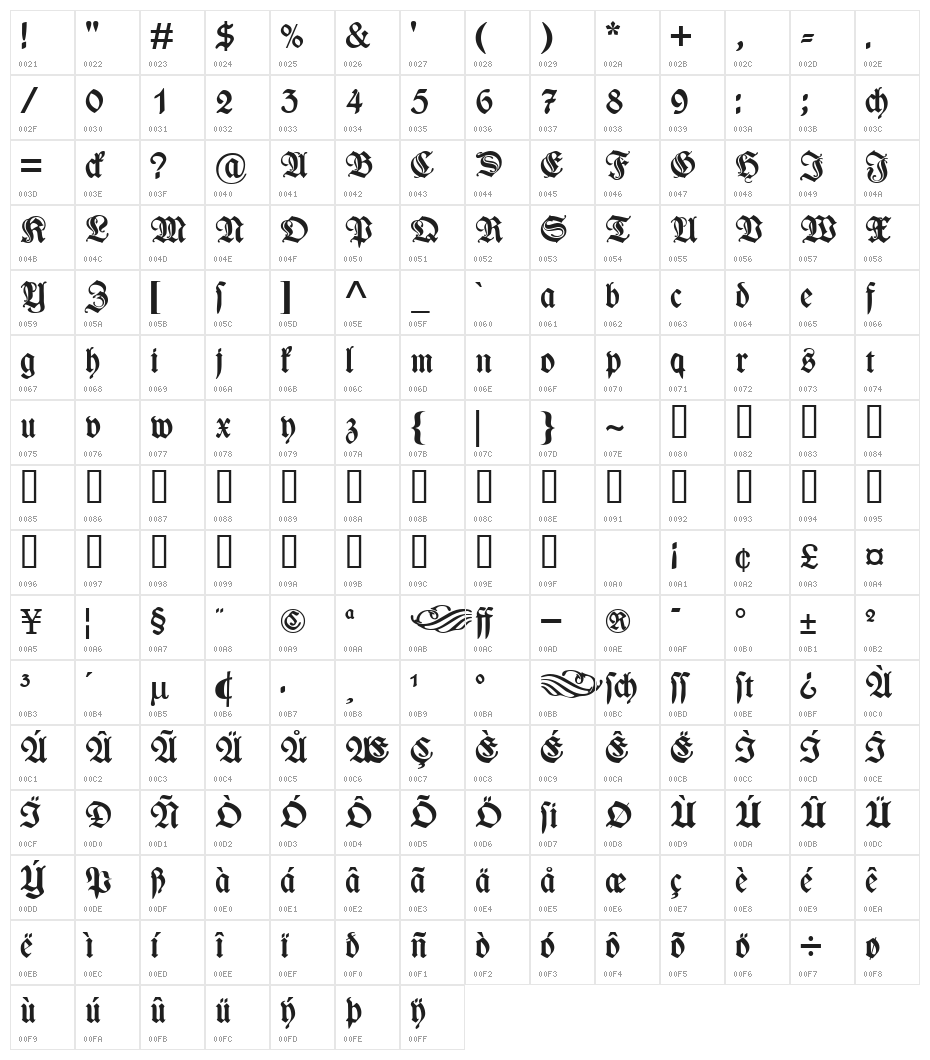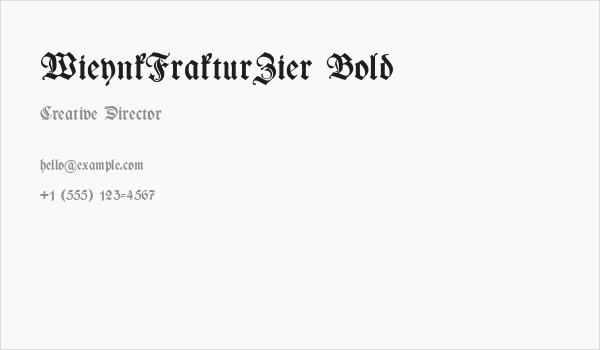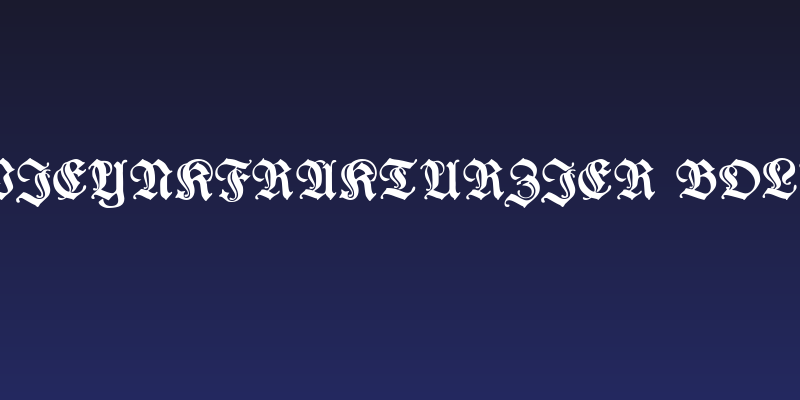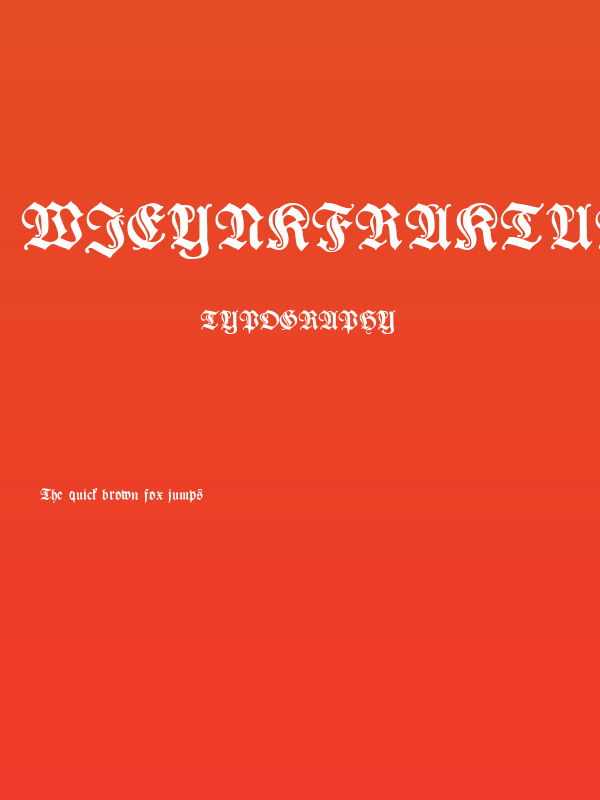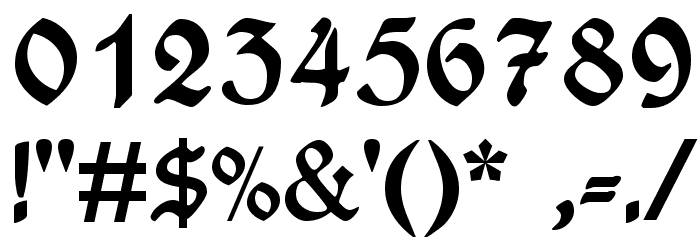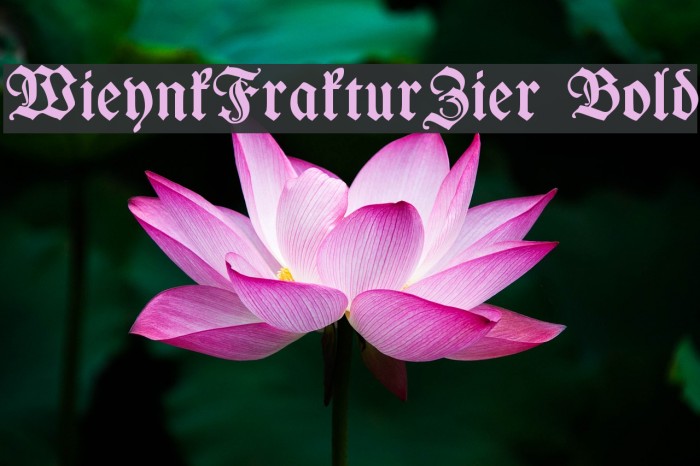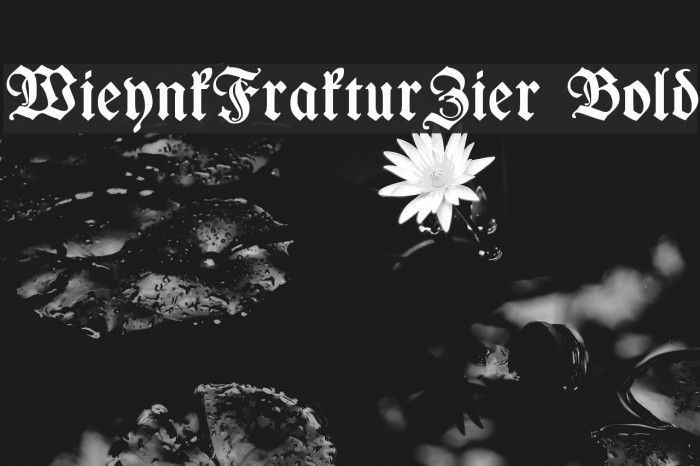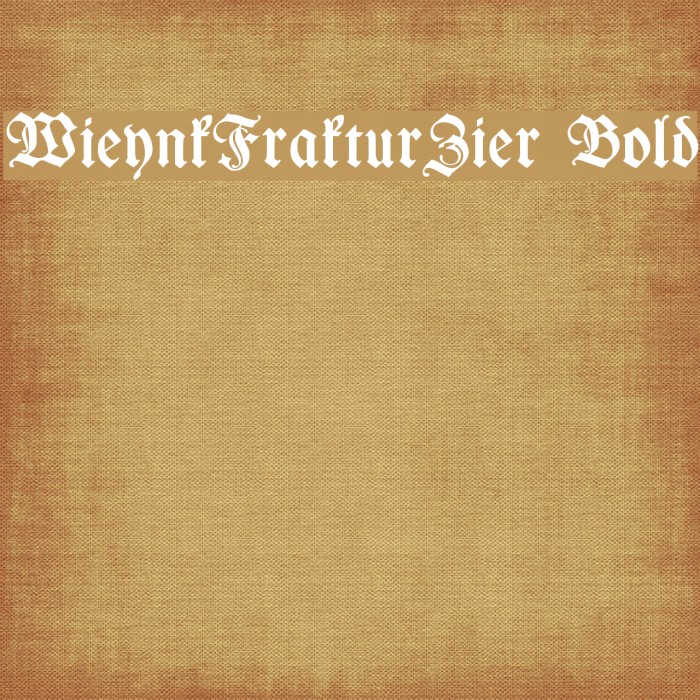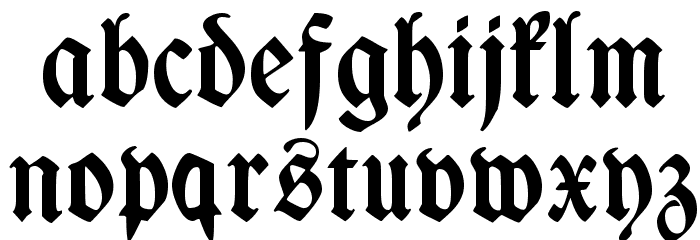
WieynkFrakturZier Bold Font
WieynkFrakturZier Bold Description
This font is a bold and intricate Blackletter style, characterized by its ornate and decorative elements. The letters feature sharp, angular lines with elaborate flourishes, typical of traditional Gothic scripts. The uppercase letters are particularly elaborate, with intricate loops and curves, while the lowercase letters maintain a consistent boldness and complexity. The numerals and special characters follow the same decorative style, ensuring a cohesive look across all glyphs. This font exudes a historical and classic feel, reminiscent of medieval manuscripts and traditional German typography.
| Overall Style | Classic |
| Use Case | Logos, Headlines, Decorative text |
| Proposed Projects | Ideal for historical documents, certificates, wedding invitations, or any project requiring a classic and ornate touch. |